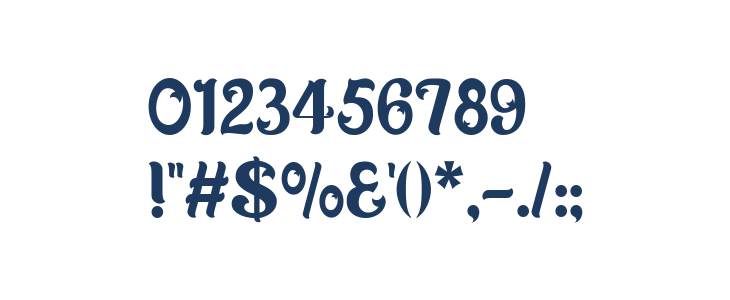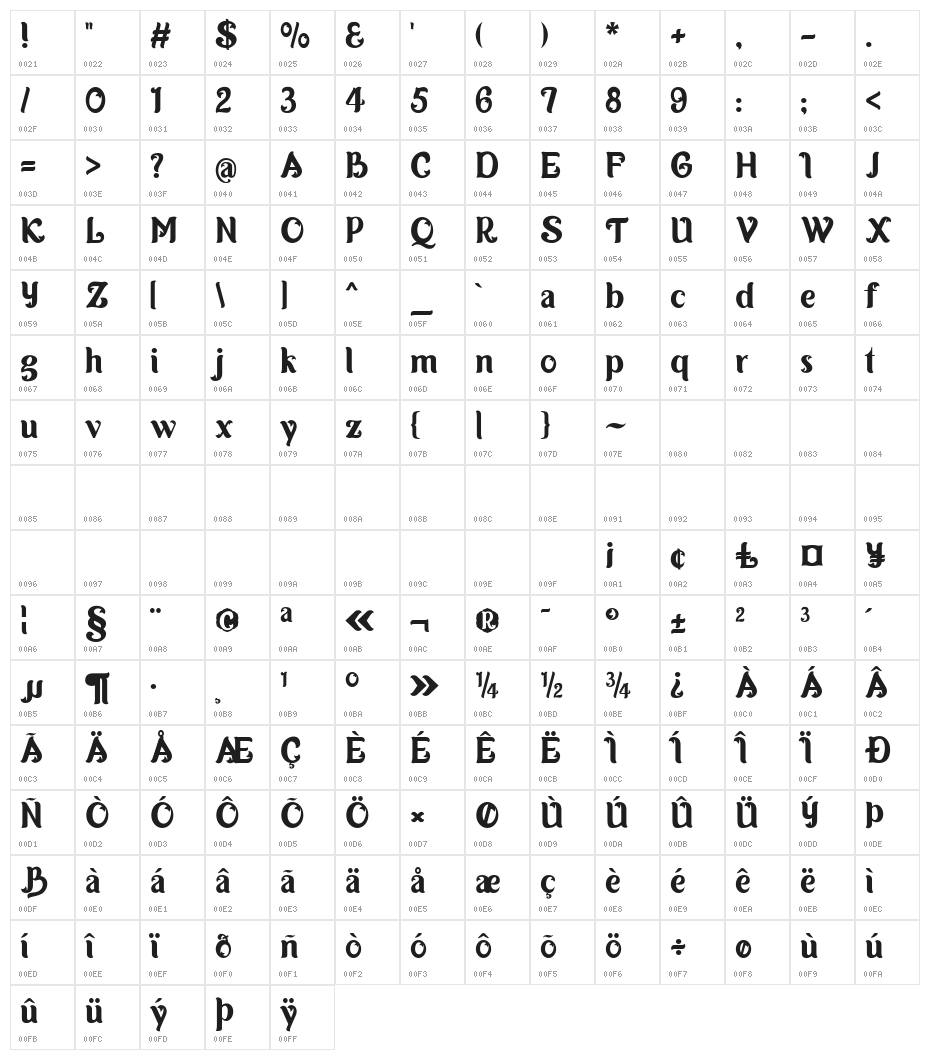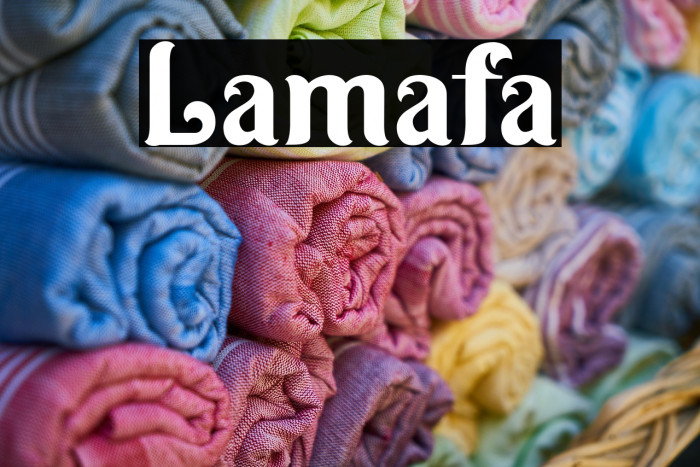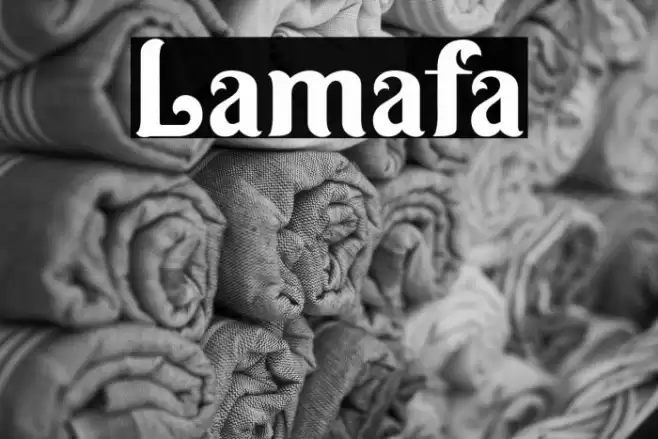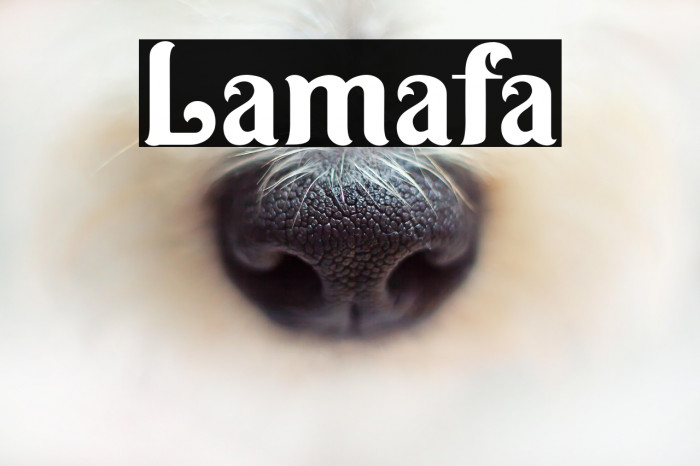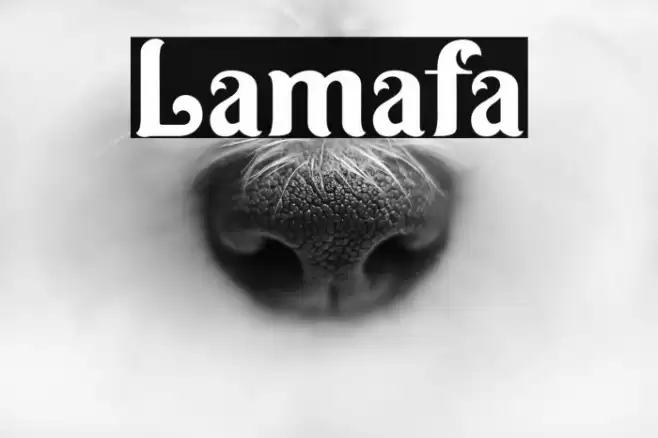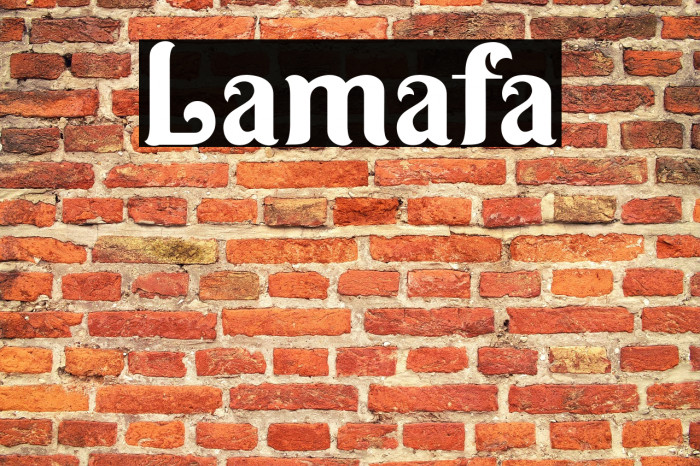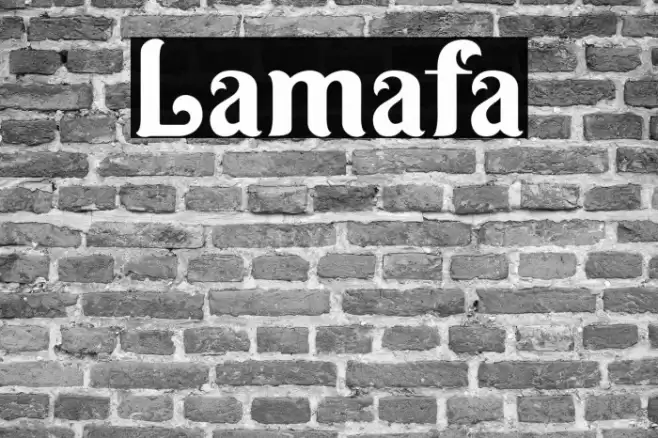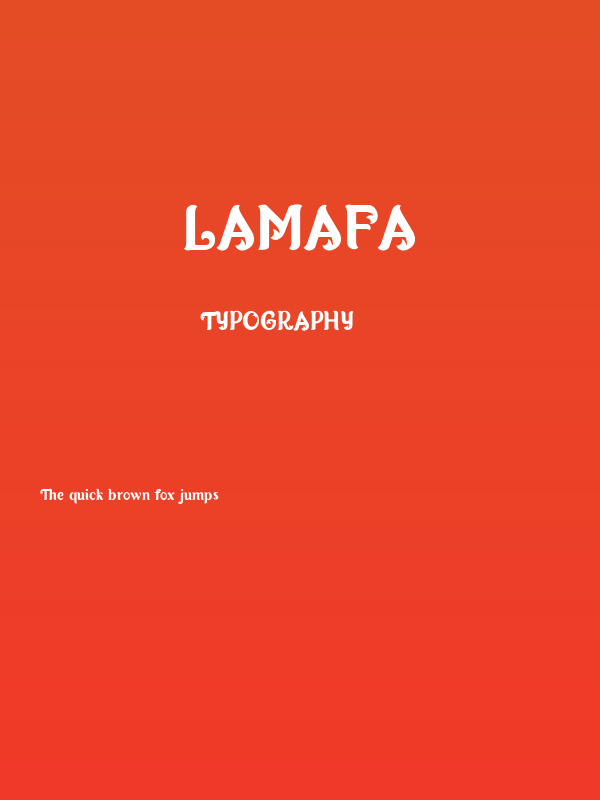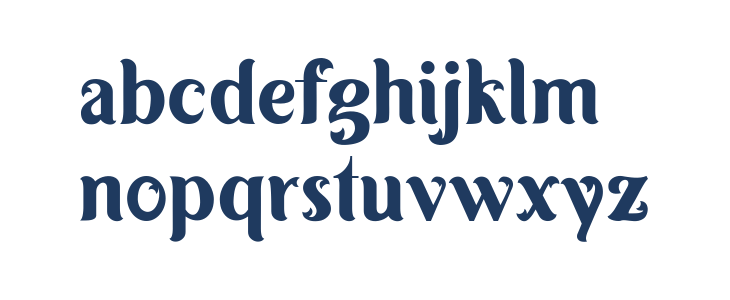
Lamafa Font
Lamafa Description
This font features a bold and decorative style with unique, playful elements that give it a distinct personality. The characters are designed with a combination of thick and thin strokes, creating a high contrast that enhances its visual impact. The uppercase letters exhibit a strong presence with their bold curves and sharp edges, while the lowercase letters maintain a consistent style with slightly softer lines. The numerals are equally bold, ensuring they stand out in any design. Special characters are crafted with the same attention to detail, making them suitable for a variety of creative applications. The overall design is both modern and vintage, offering versatility for different design needs.
| Overall Style | Modern, Vintage |
| Proposed Projects | Ideal for branding, poster design, headlines, and any project requiring a bold, eye-catching typeface. |